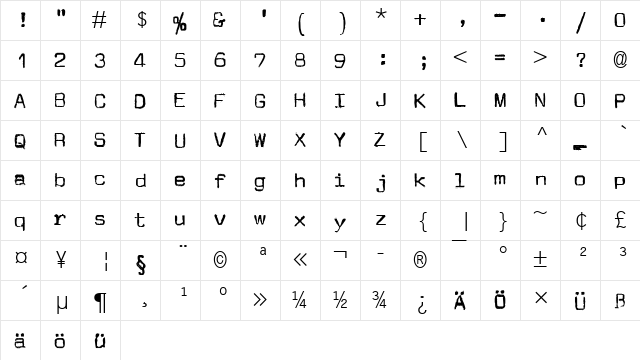
JMLetter Regular
Design Context for JMLetter Typeface
JMLetter offers clean, dependable letterforms without strong stylistic allegiance, making it a practical choice for designers who need flexibility.
Pro Tip: Use JMLetter in both headline and body roles to test its range before committing to a single application.